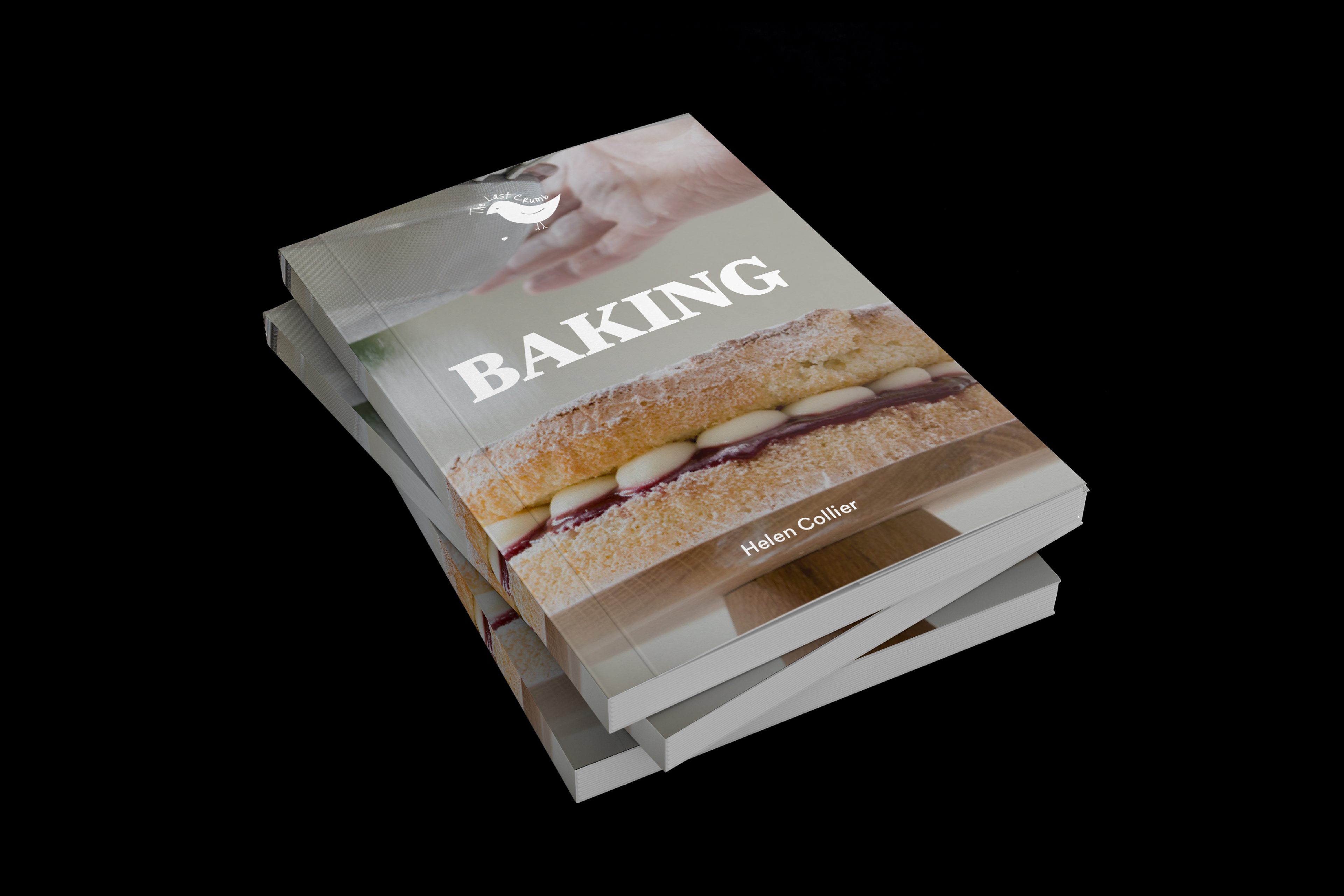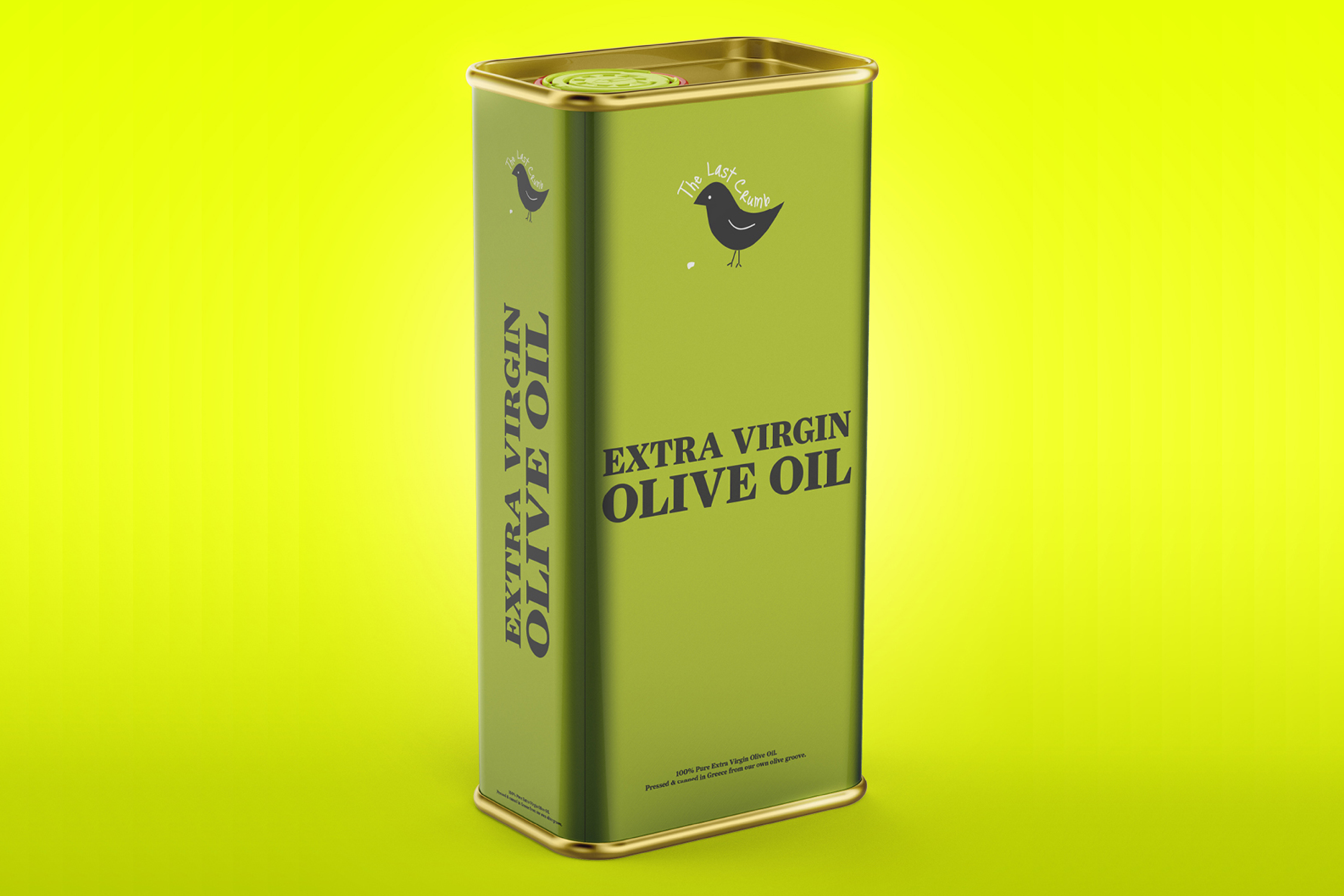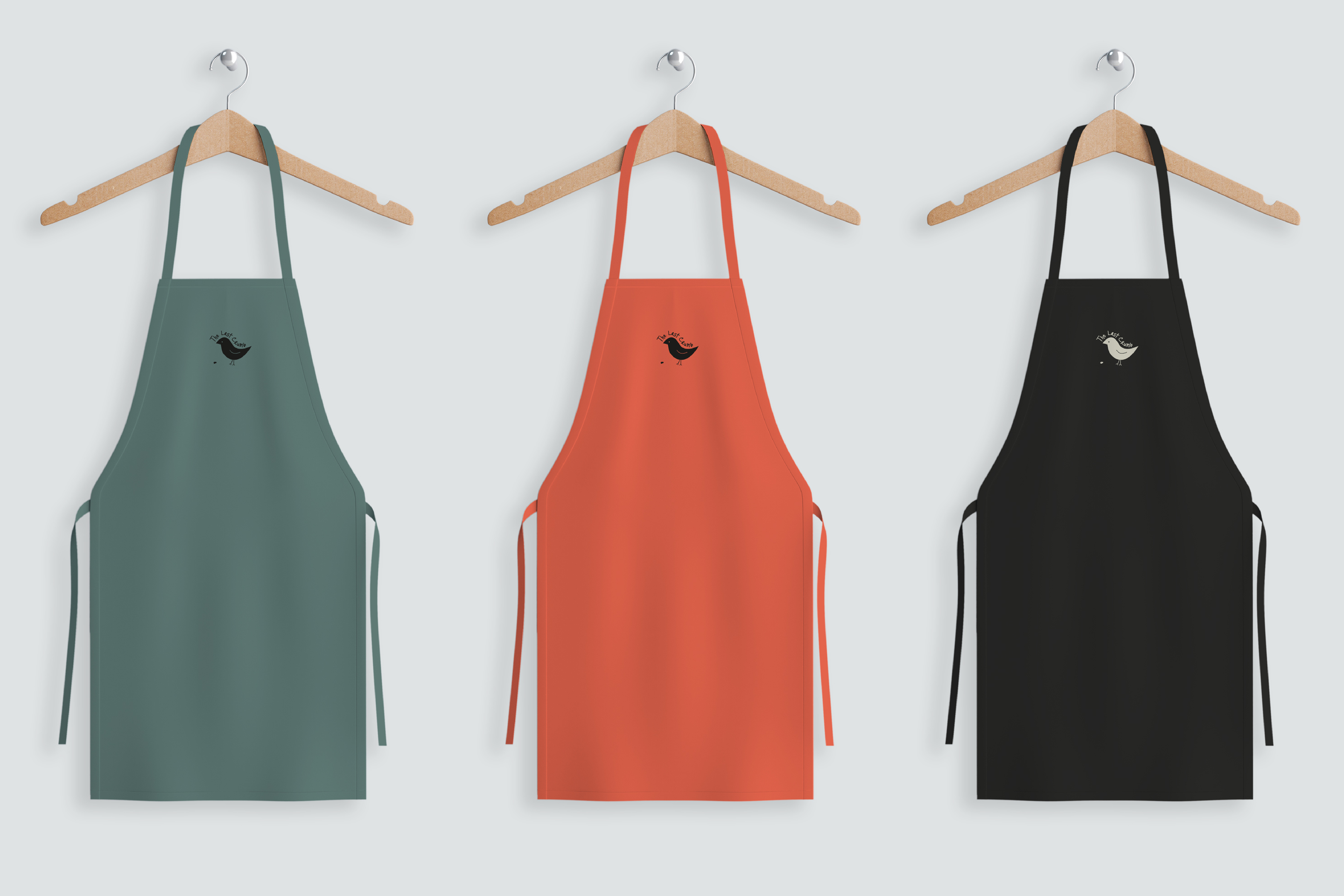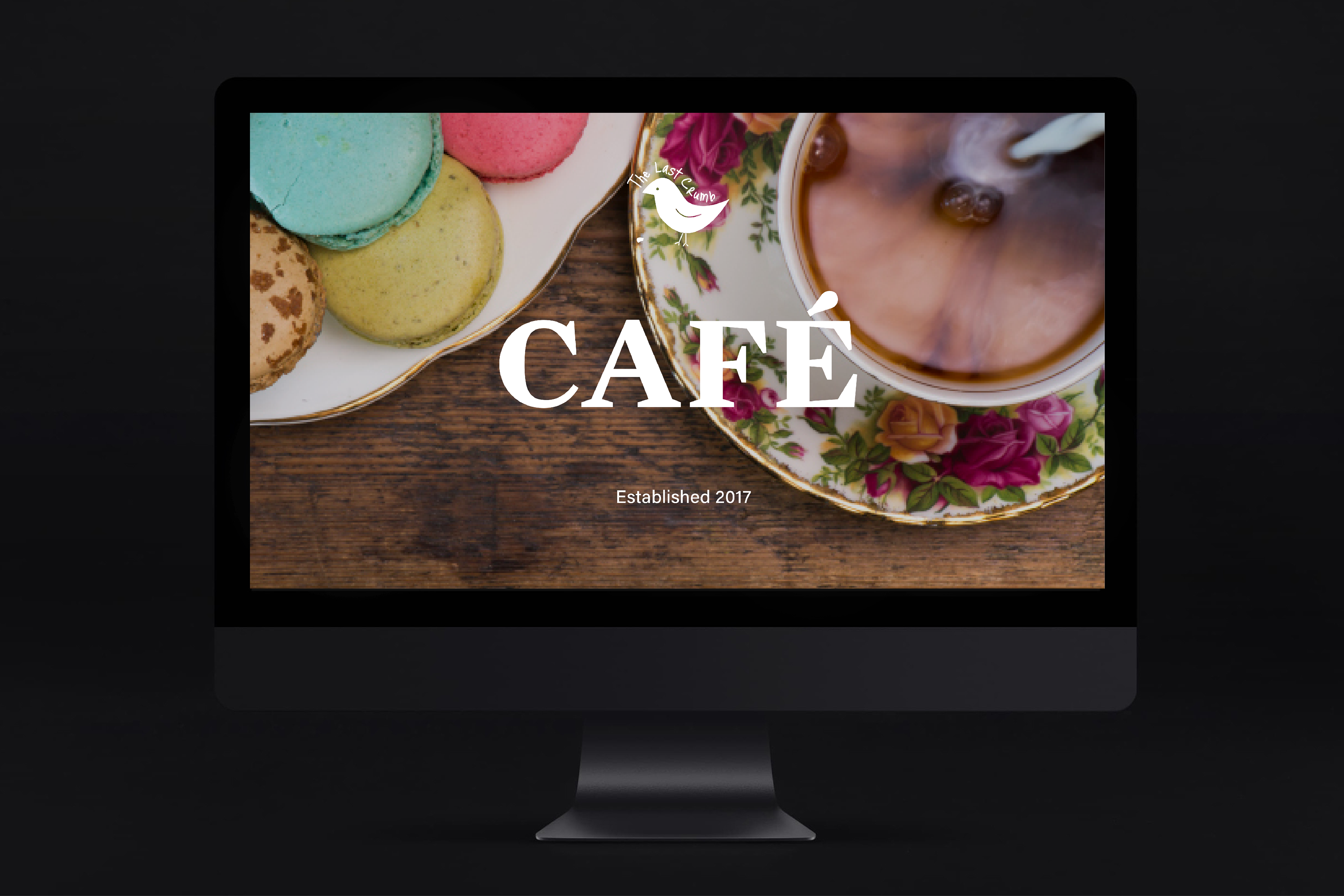
The Last Crumb
The brief was to create a playful, fun and personal identity and due to the name and the fact that the owner Helen’s nickname is ‘Bird‘ we couldn’t fight the obvious! The identity had to incorporate several subsidiaries, a café, a work hub, a bakery and products. With this in mind, we developed the identity and implemented it on to a range of products and essential marketing items.